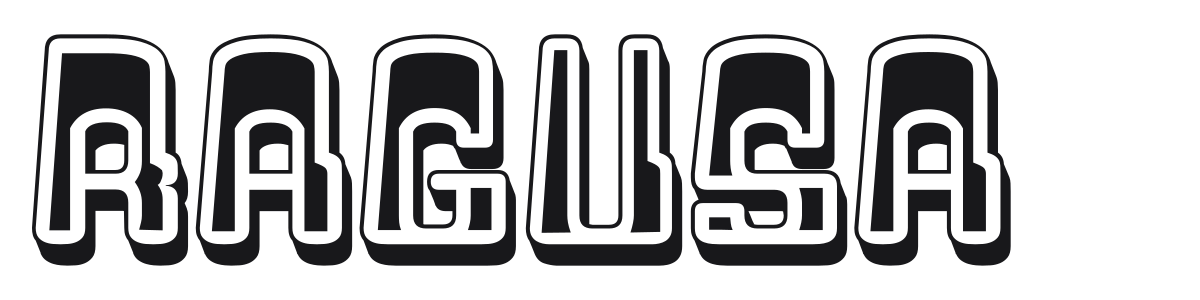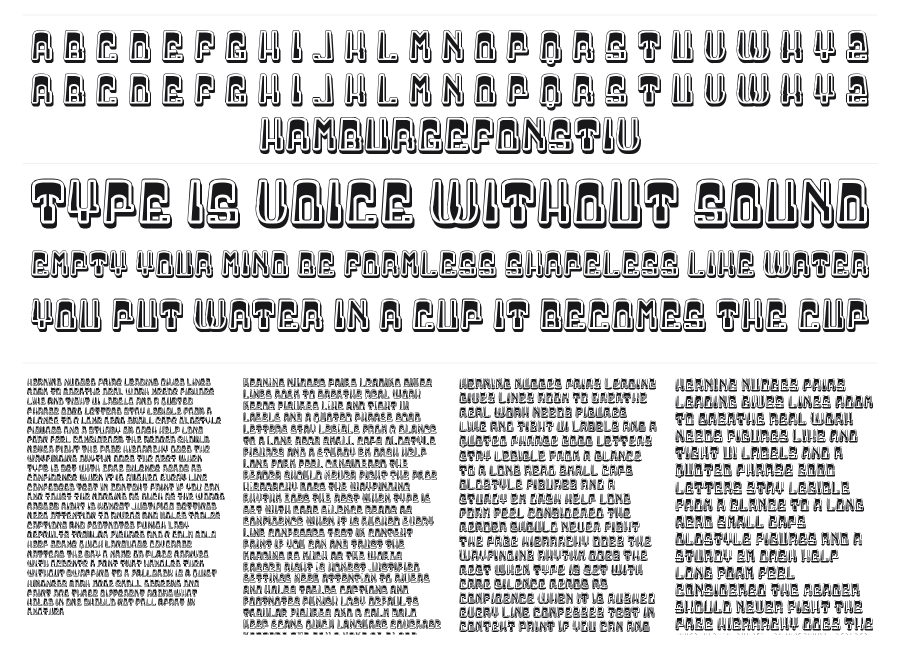
Ragusa
Ragusa is a heavy rounded retro display font with a layered three-dimensional shadow treatment and an inline white stroke that punches the letterforms off the page. The design pulls directly from 1970s groovy lettering, with extreme corner rounding and chunky proportions that feel equally at home on a vintage poster or a modern throwback brand. Compact, bold, and unapologetically loud.